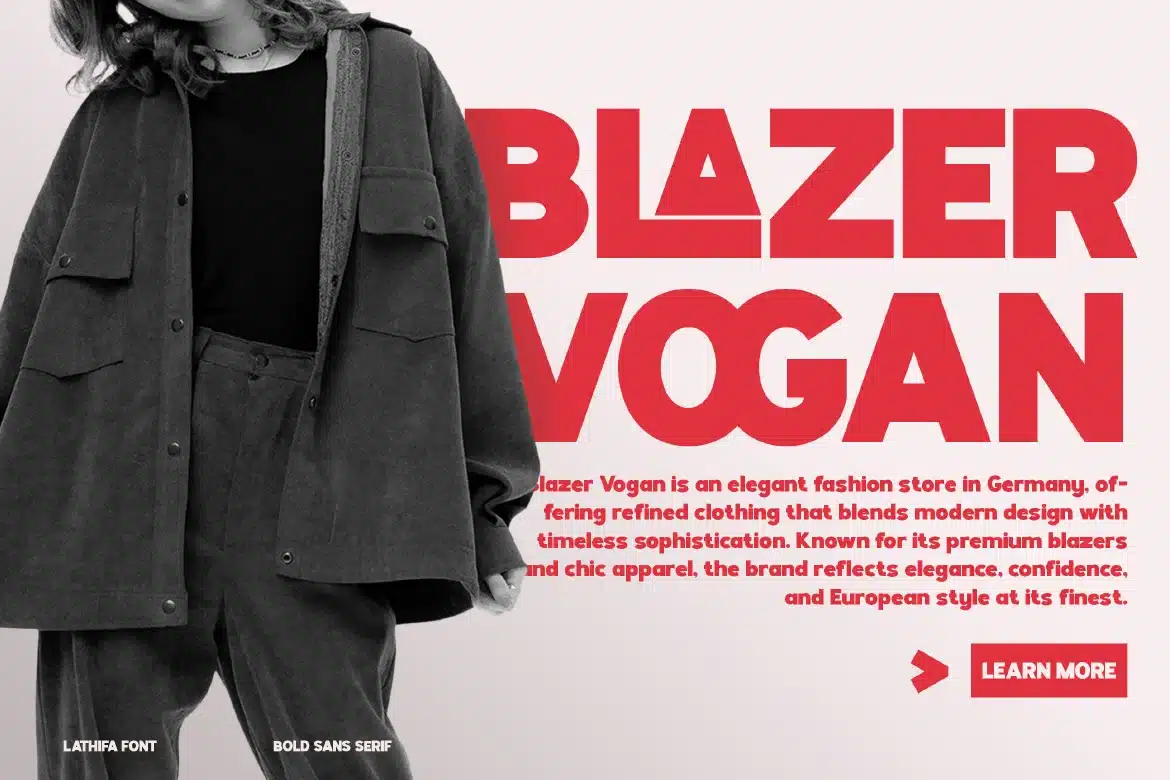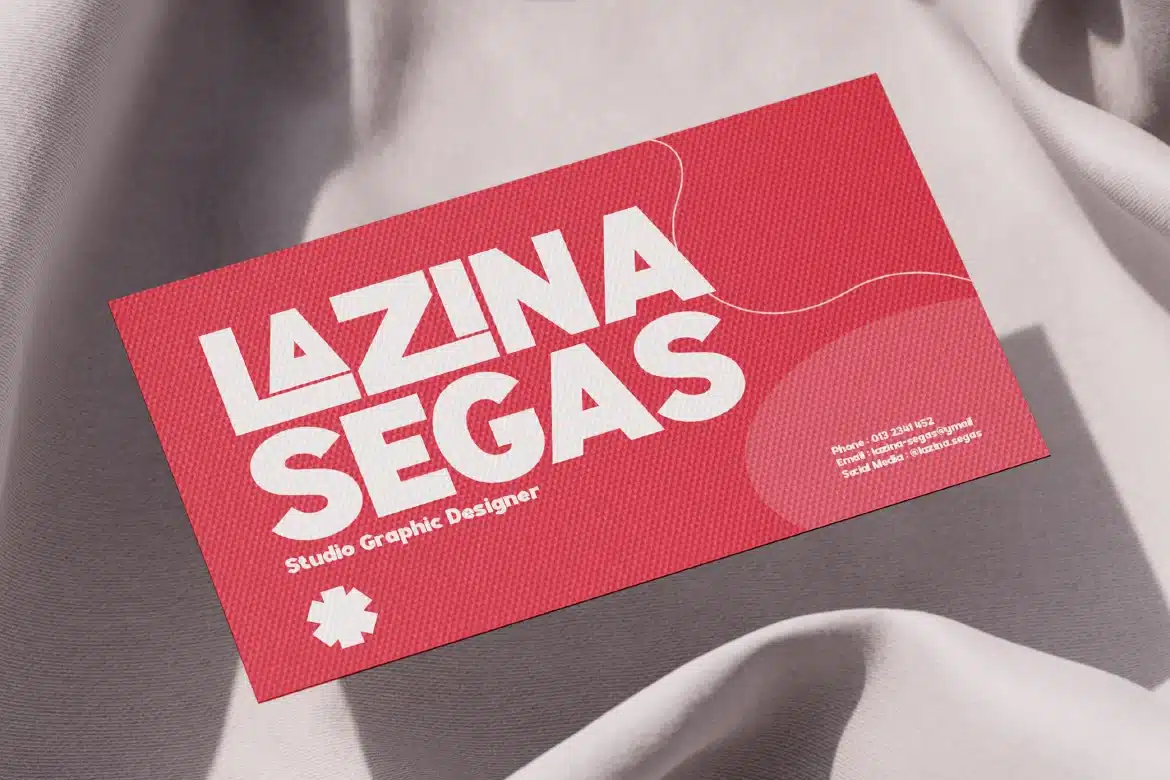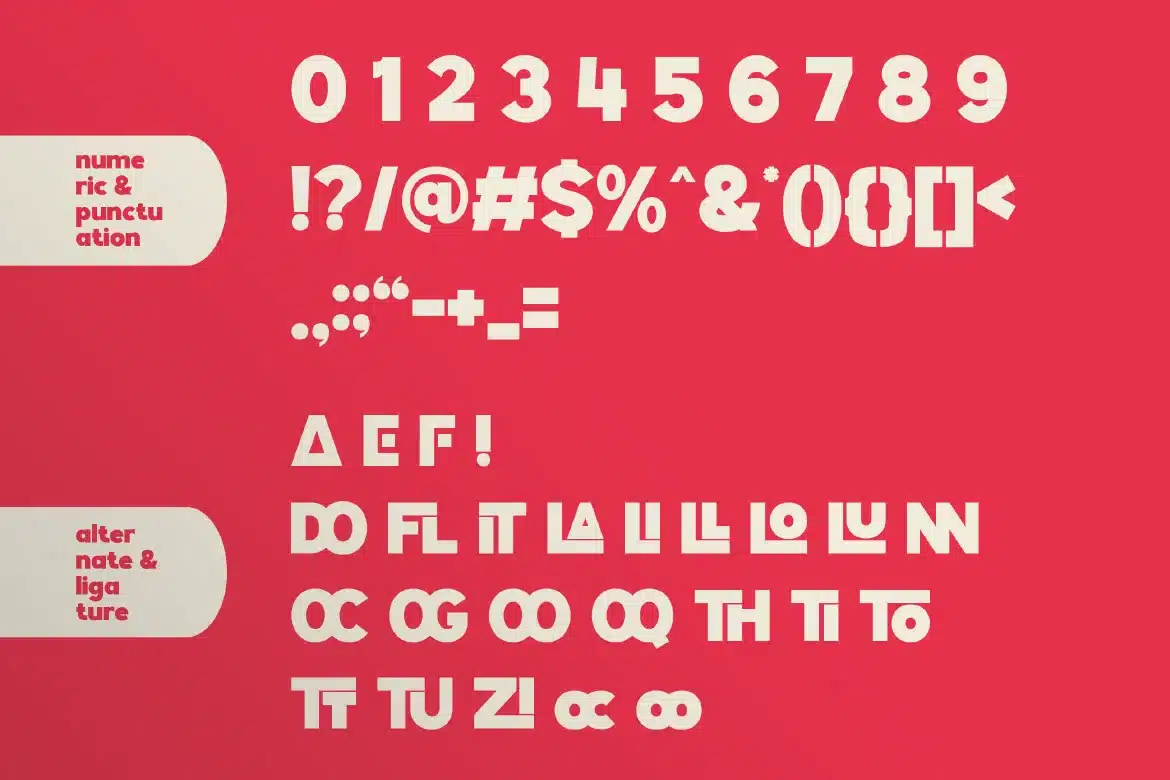
Modern Bold Sans Serif Font – Lathifa
Modern Bold Sans Serif Font - Lathifa
Lathifa is a strong and modern bold sans serif typeface designed to make a confident visual statement. With its solid letterforms, clean lines, and balanced proportions, Lathifa delivers a powerful yet refined look that stands out in any design. Its bold character makes it highly effective for eye-catching headlines, impactful branding, and modern visual compositions. Whether you’re working on logos, posters, or digital content, Lathifa brings clarity, strength, and contemporary style to your typography.
Who Should Use Lathifa?
Lathifa is perfect for designers, brands, and creatives who want to create bold, modern, and impactful visuals. It’s especially suited for projects that require strong typography presence while maintaining a clean and professional appearance.
Modern branding and identity design
Bold logo creation
Posters and advertising materials
Social media graphics
Editorial headlines
Packaging design
Digital content and web design
Strong typography layouts